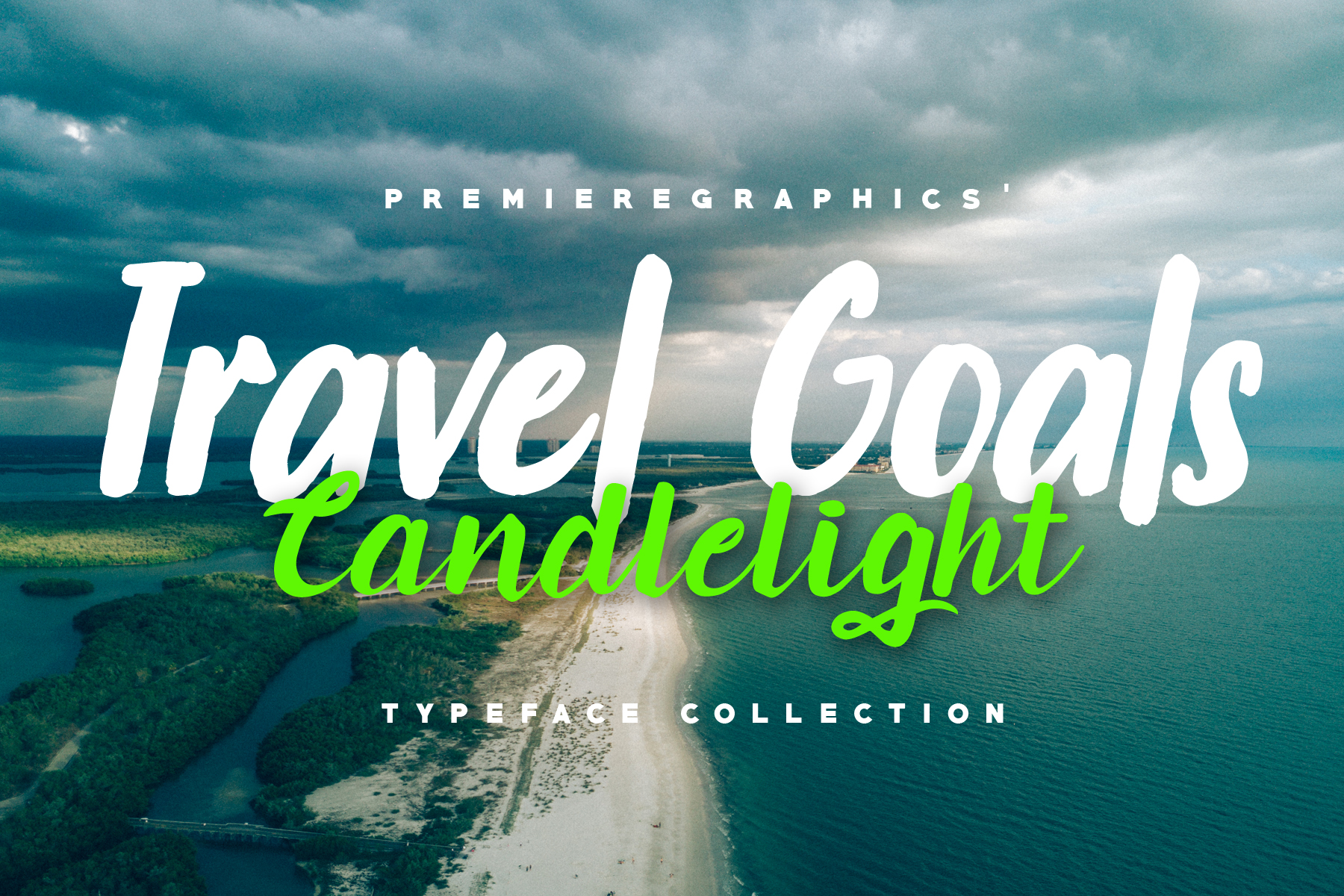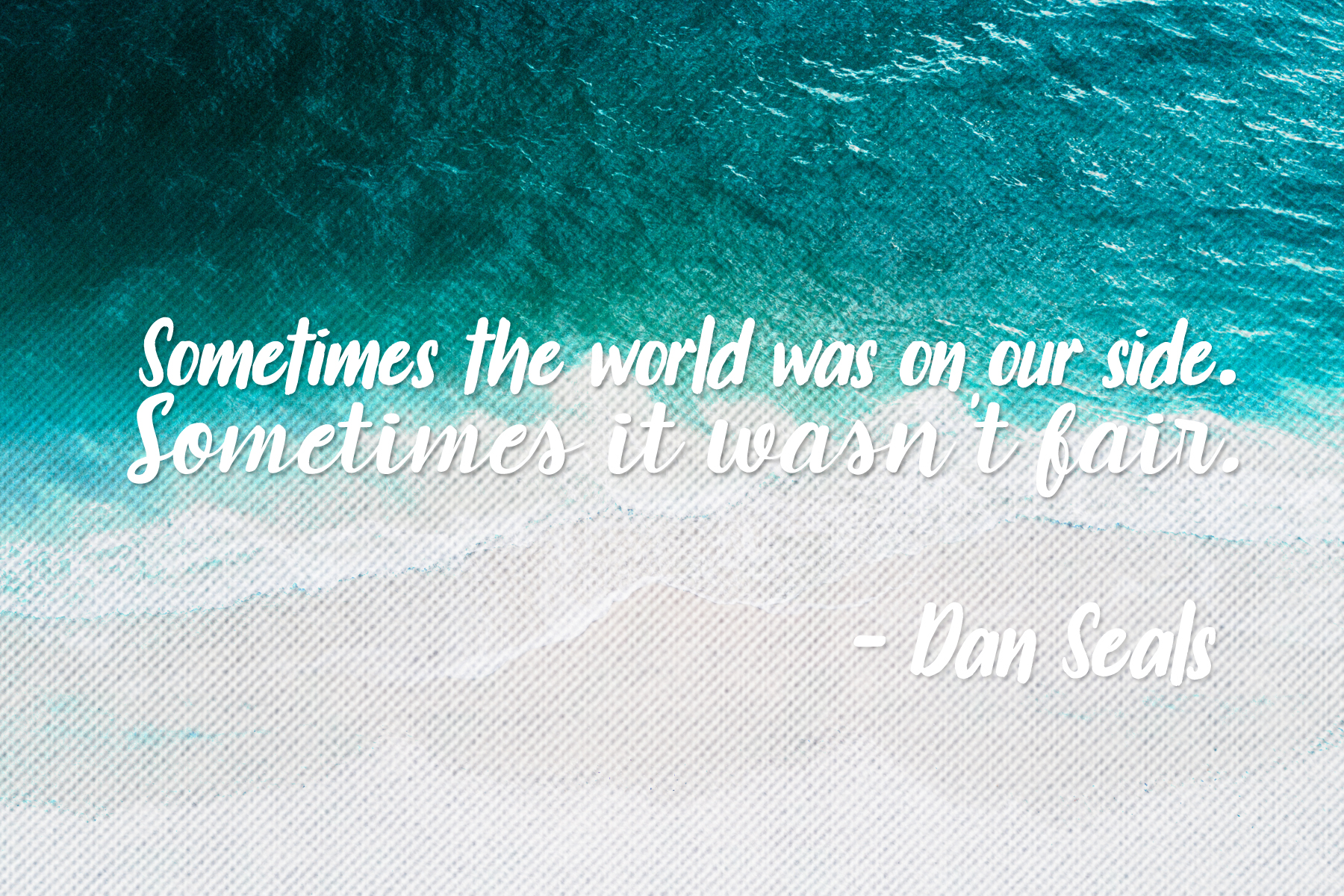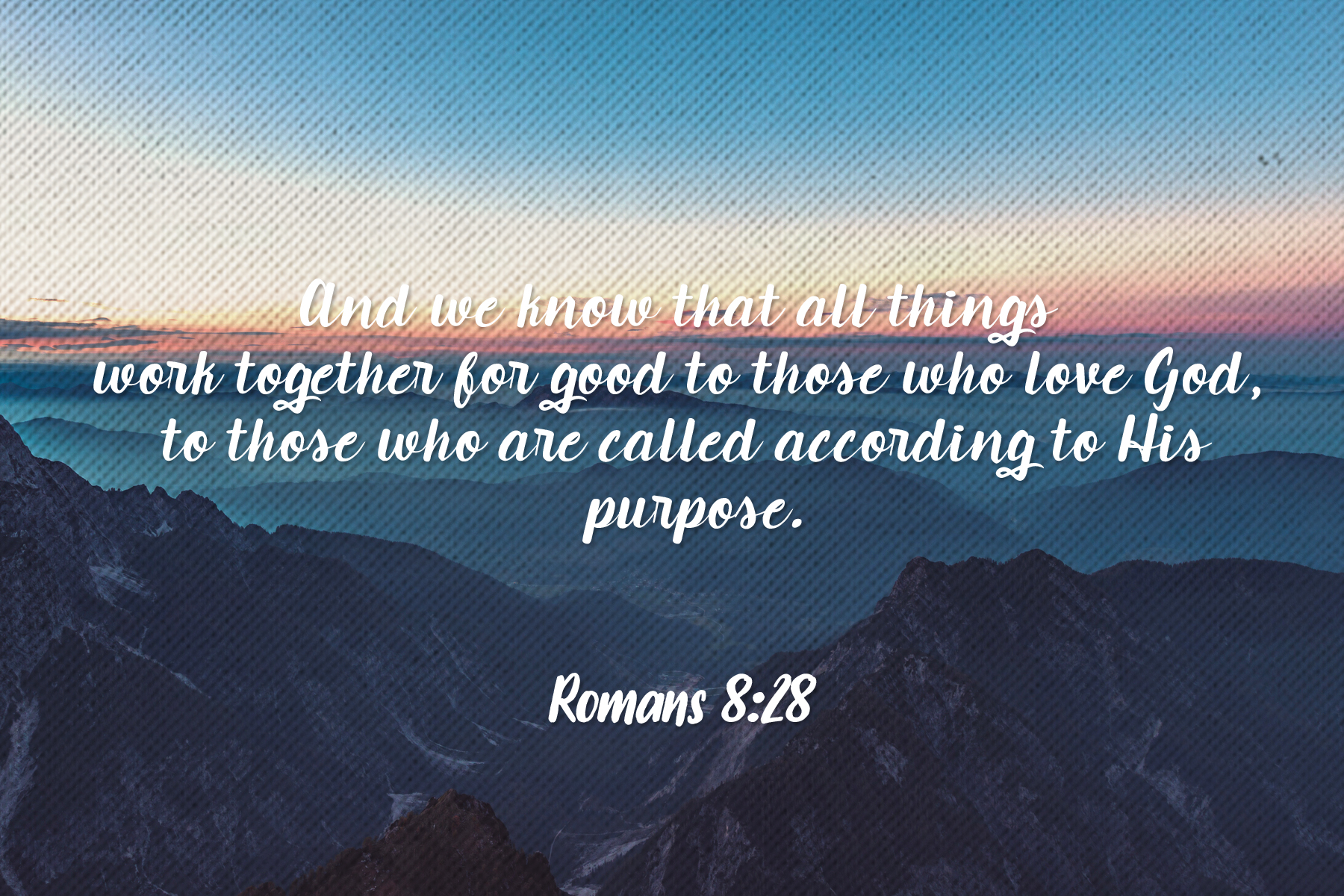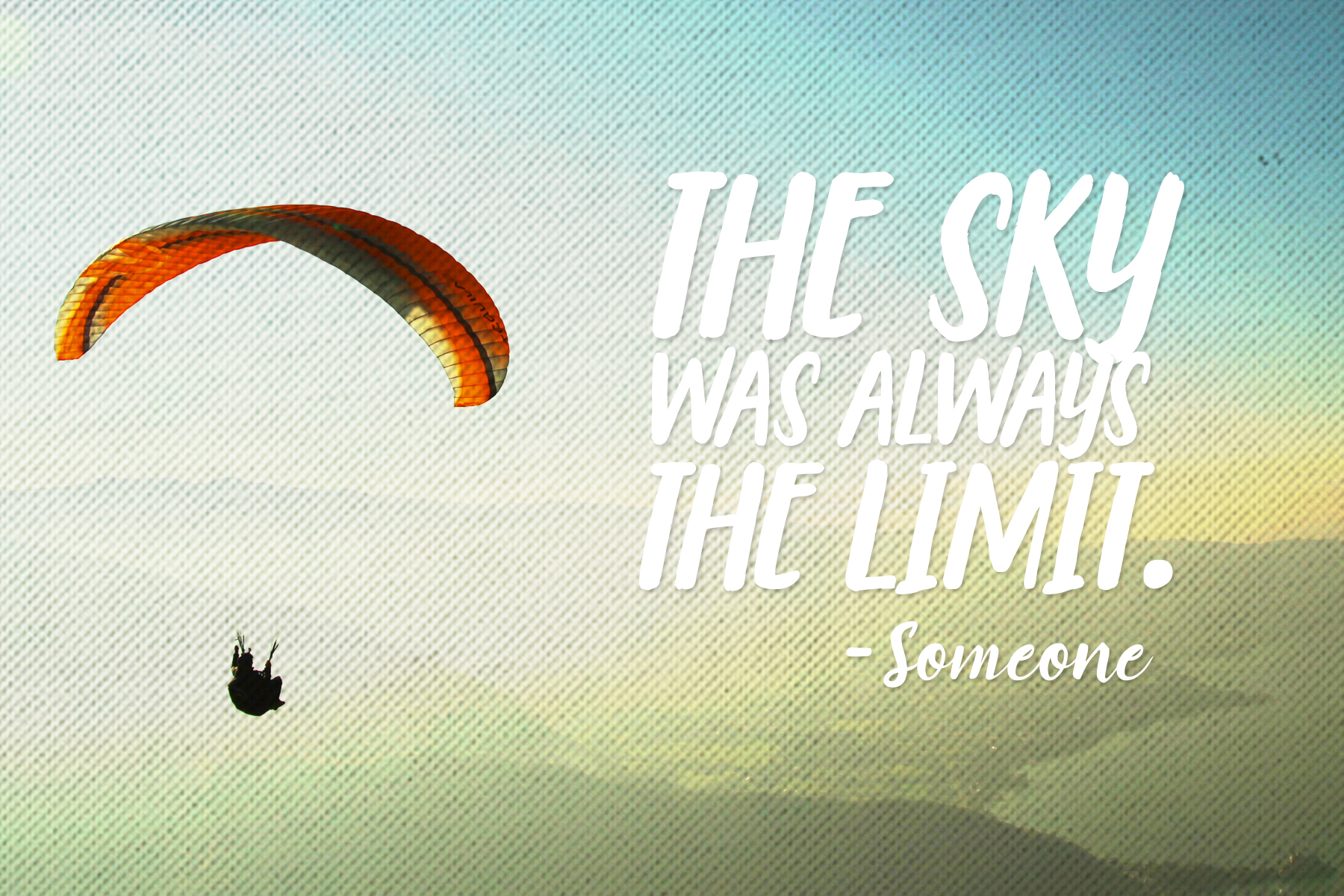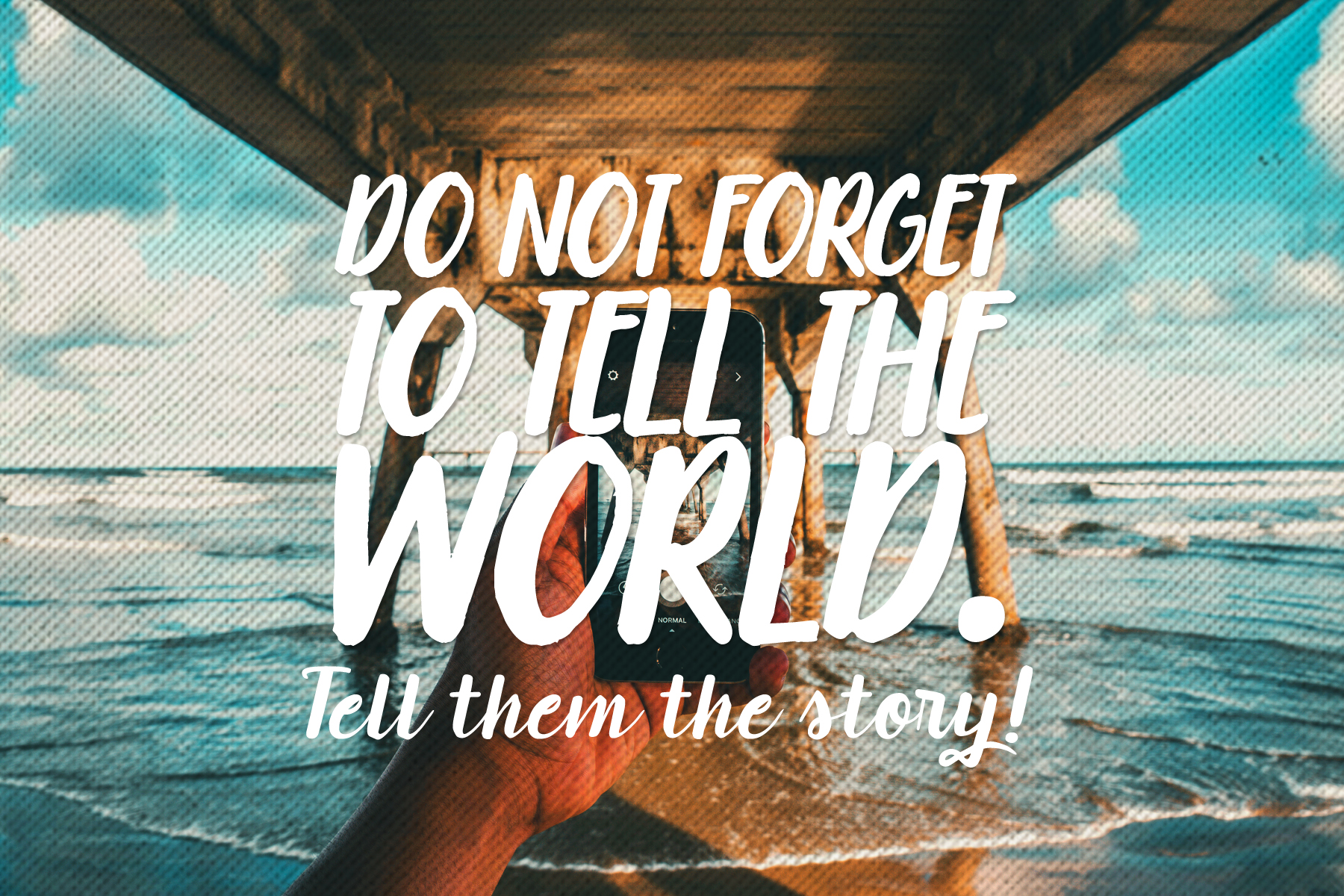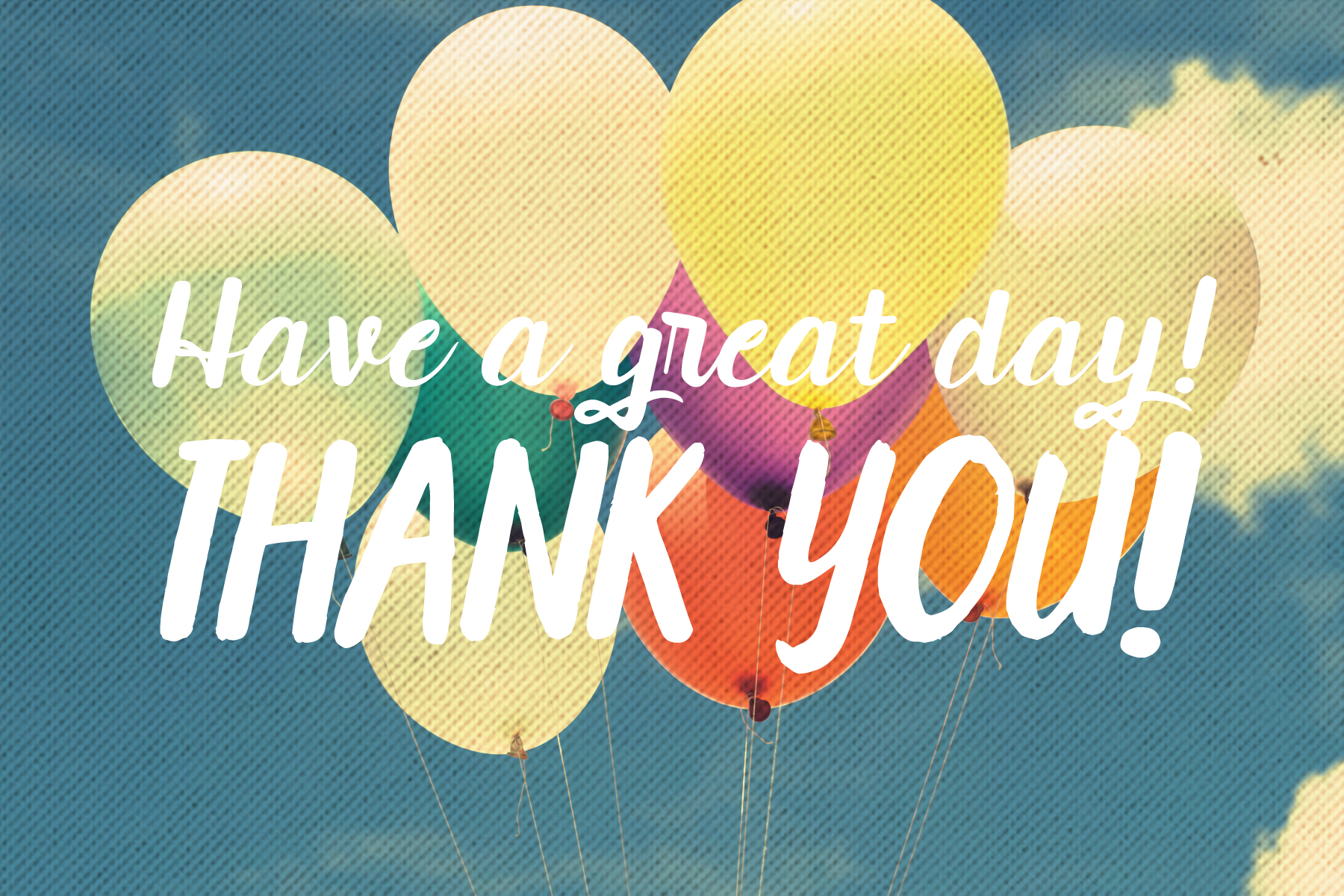
Travel Goals & Candlelight Font
Meet the Travel Goals & Candlelight Font Collection!
Are you looking for a bold marker font with a smooth edge? Travel Goals is the type for you! This font is carefully handwritten on a paper to have the best handwriting effect on the font. Travel Goals has a unique style that is perfect for logo and identity, branding, blog/vlog, magazines, merchandise, brochures, and etc.
The font is perfect for any project with travel concepts! Try it out!
Travelling is much more fun when you do it together, and the same applies for this typeface! That’s why it comes with a travel companion.
A bold typeface always needs a sweet script. Candlelight font is a perfect partner for everything! Its smooth edges and girly style is perfect for quotes and messages. And of course, like the Travel Goals font, it is also great for logo and identity, branding, blog/vlog, magazines, merchandise, brochures, and etc.
You only live once! Make the most out of it!